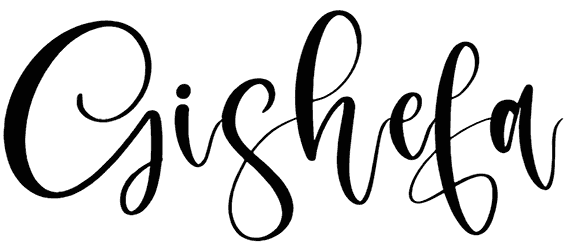
Gishefa Font
cccccThe elegant and graceful letters of the Gishefa, a script calligraphy font make it perfect for use in wedding invitations, greeting cards, and posters.
Gishefa is the ideal font to use if you’re going for a classy, sophisticated look with its two styles. It’s easy to get the free Gishefa font from RB and use it in your designs; just head on over to the site and grab it. Despite being a bit unreadable, Gishefa is a font that every designer needs.